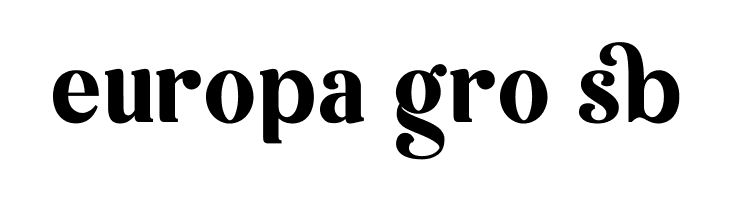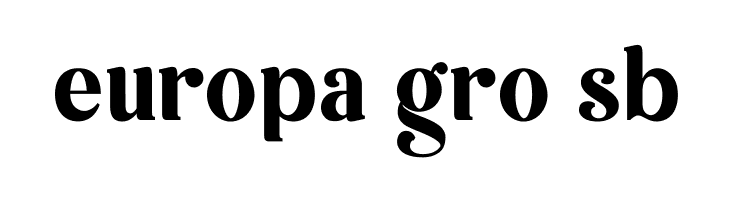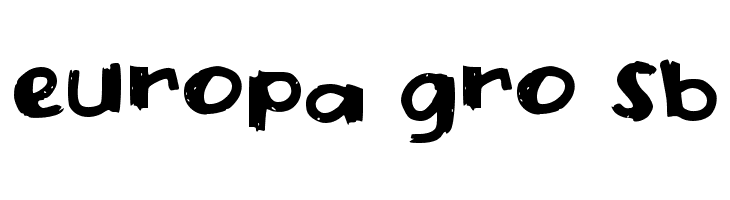
A bold, playful font with bubble-like outlines and a comic book style.
A playful, bold font with a hand-drawn, rounded style.
A bold, geometric font with sharp angles and thick strokes.
A bold, decorative font with classic and modern elements, featuring sharp serifs and elegant curves.
A bold, high-contrast serif font with dramatic strokes and decorative elements.
A bold, hand-drawn font with an energetic and playful style.